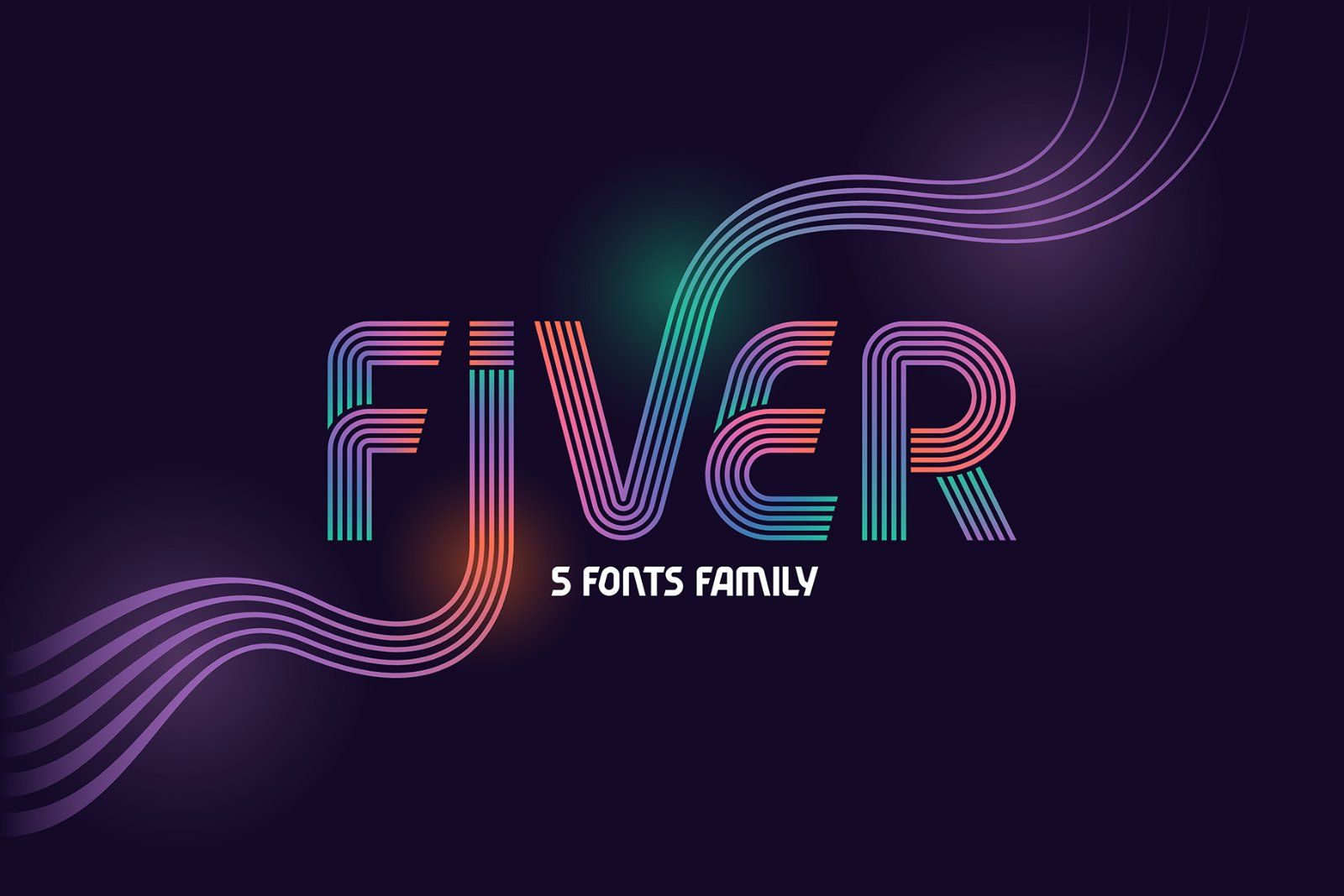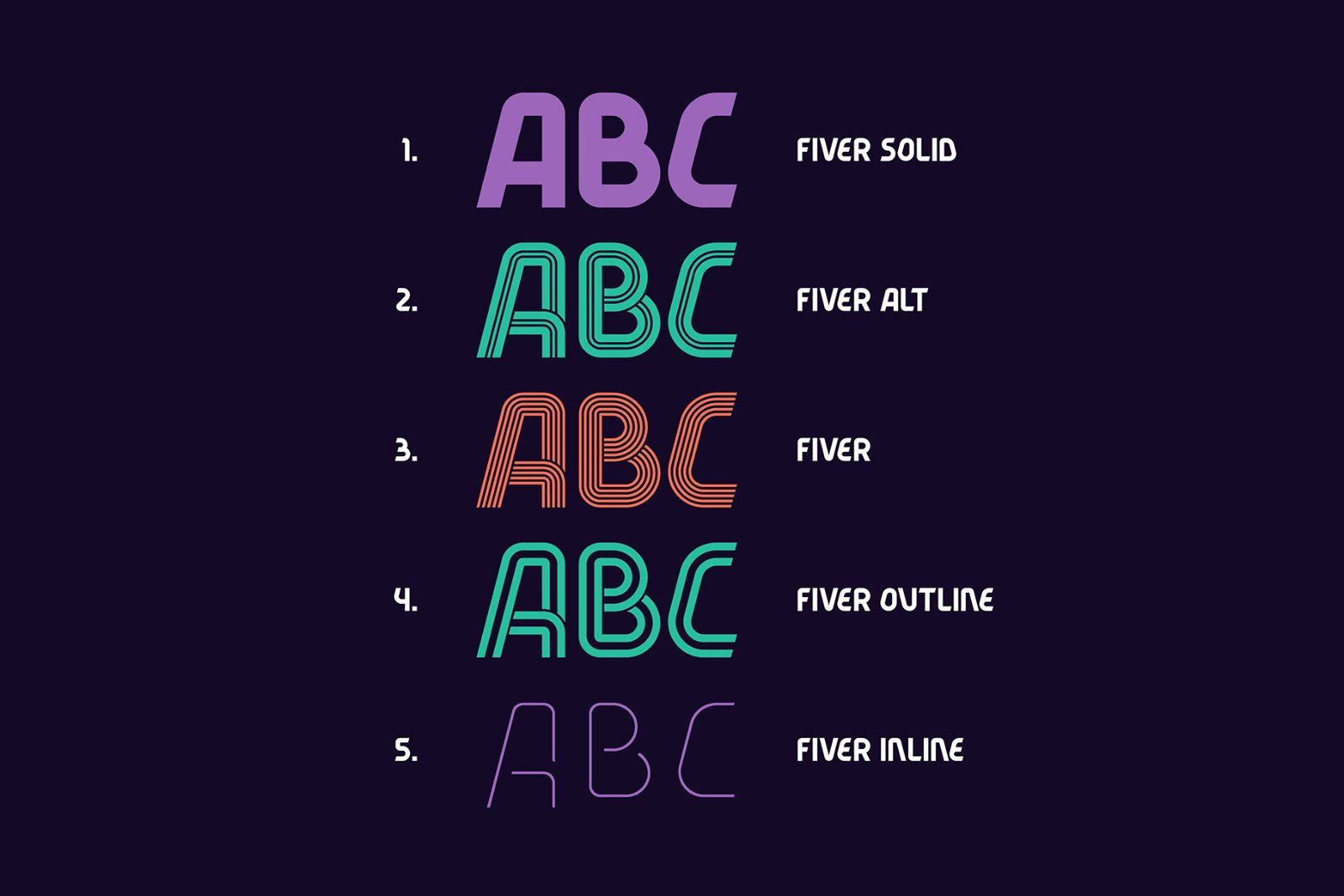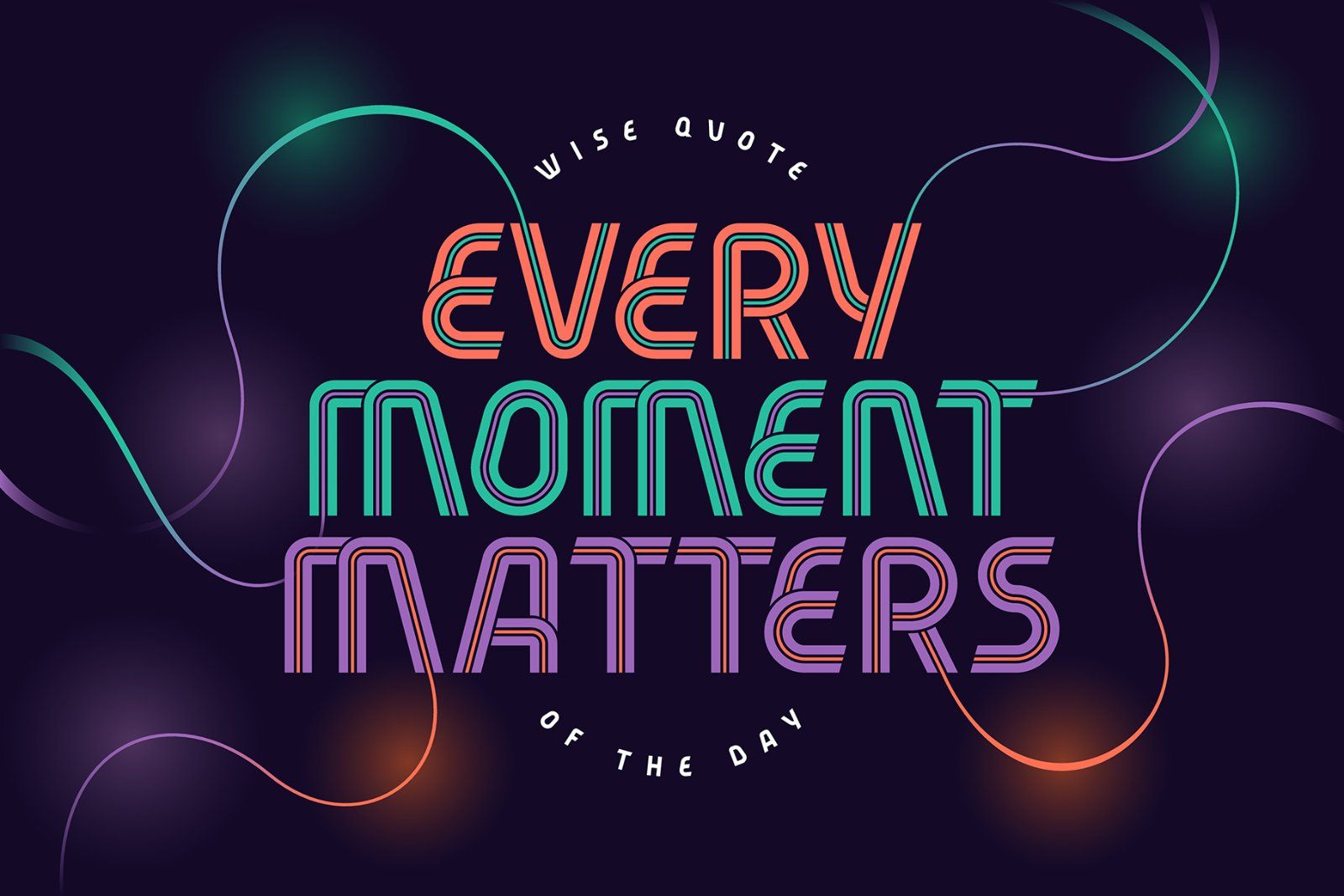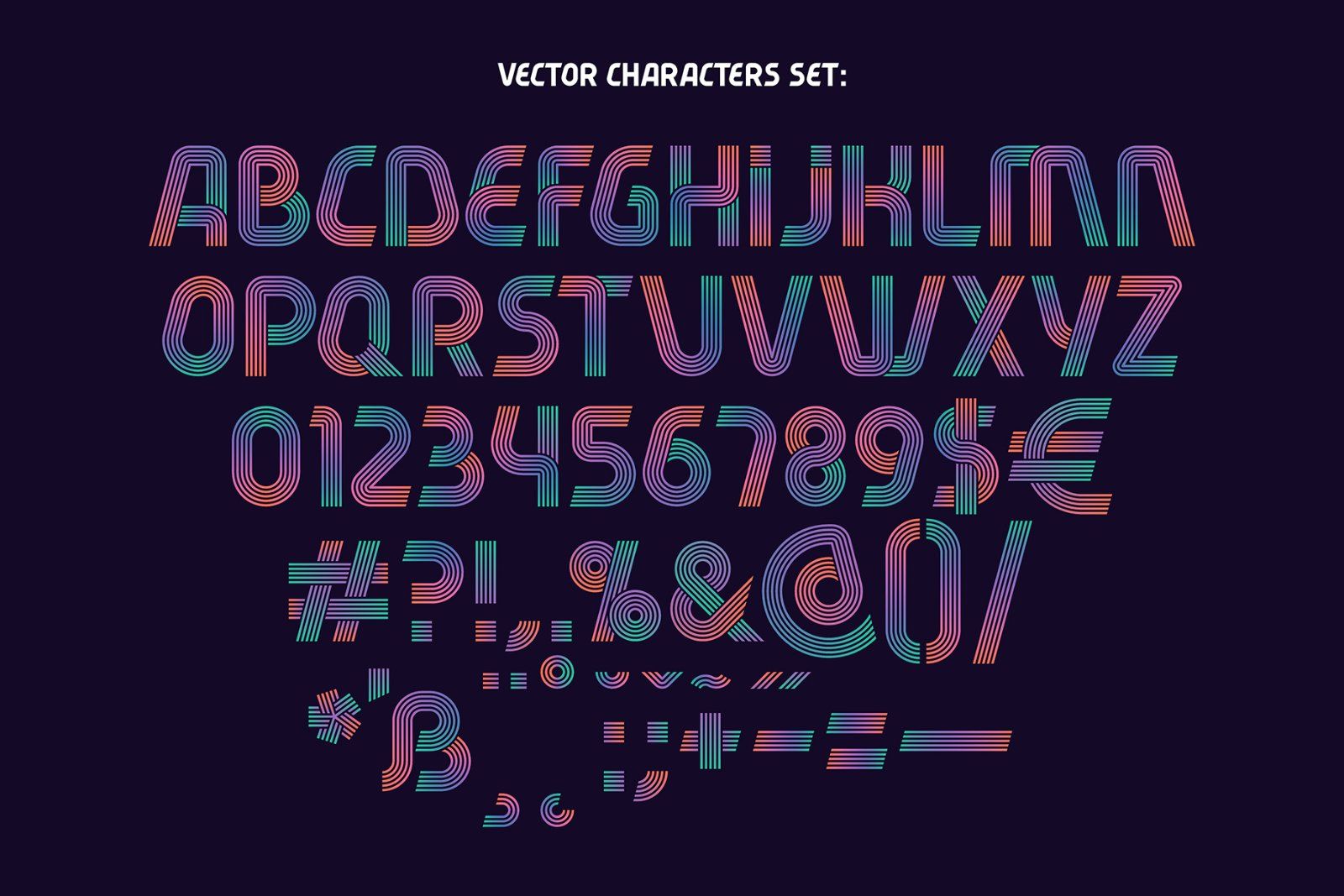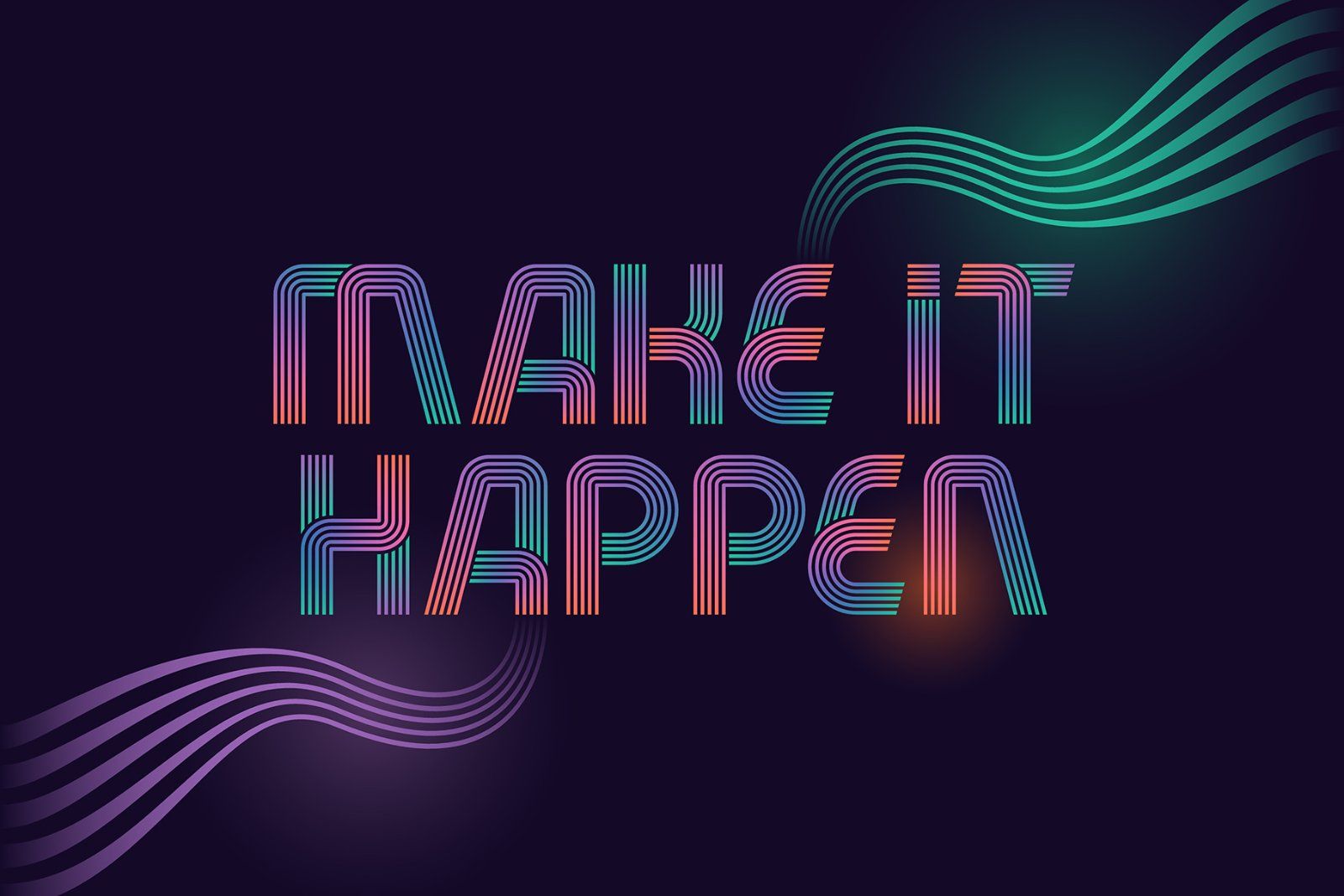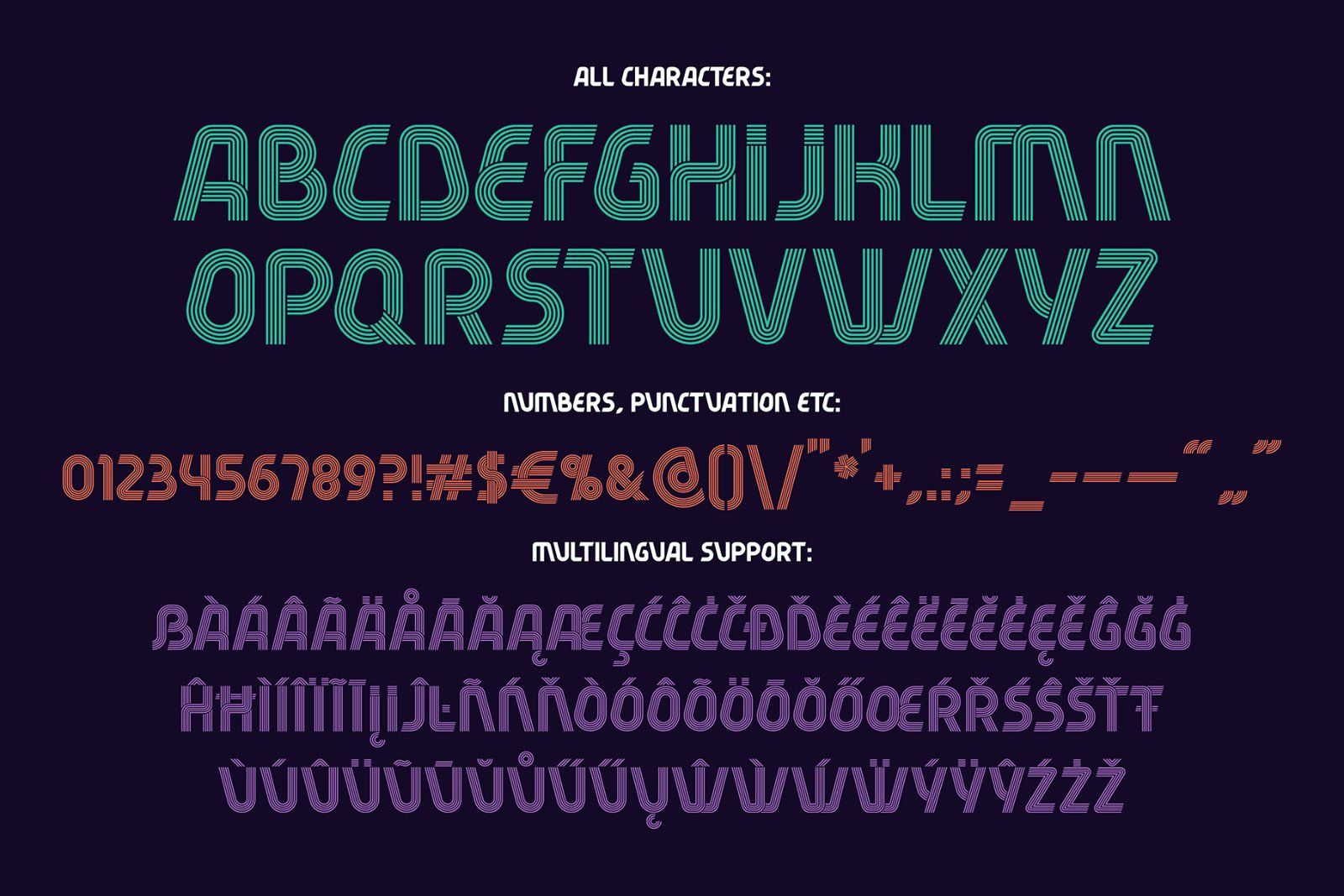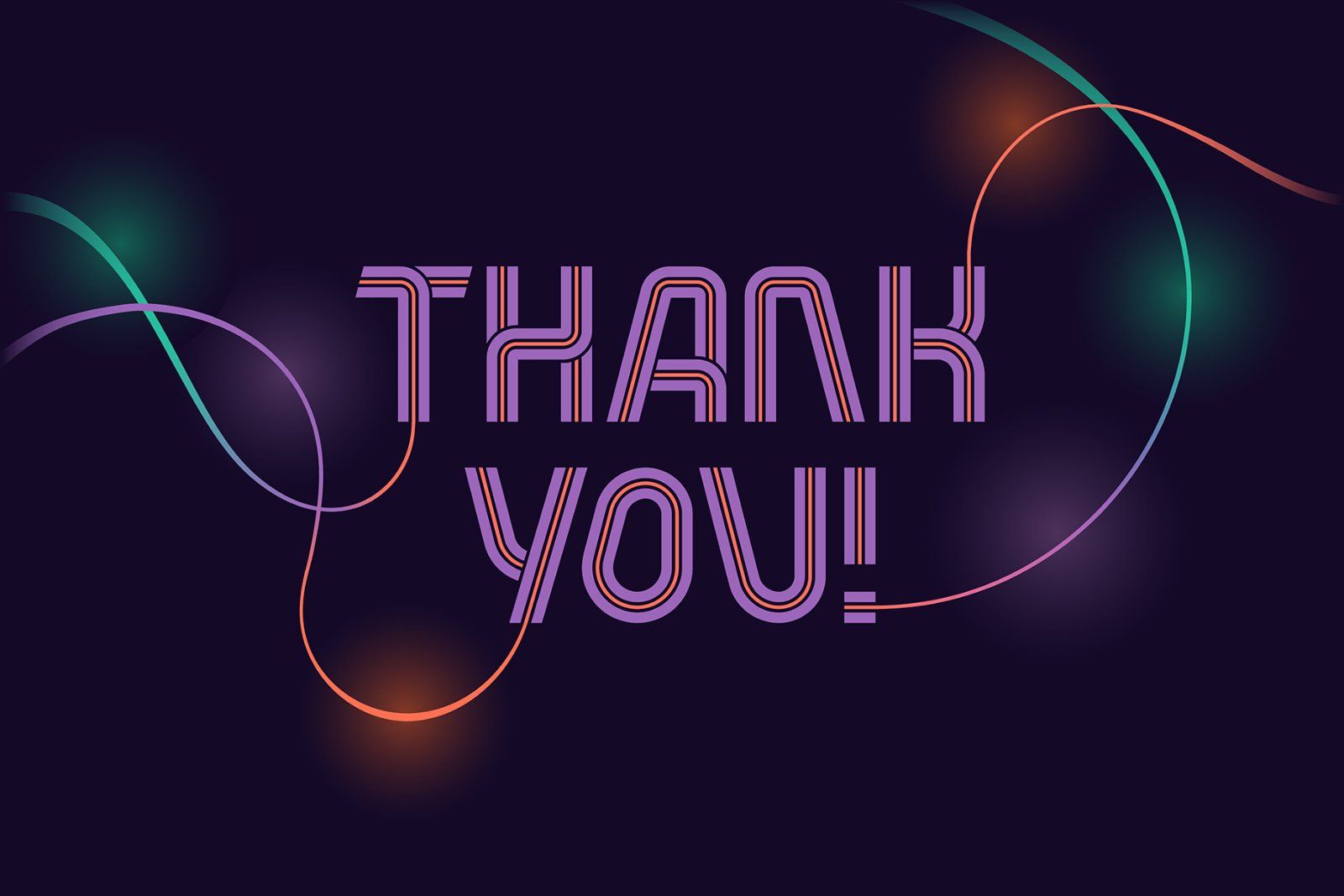
Hi, presenting a modern decorative font set named "Fiver". It consists of five fonts with different lines variations. Gradient color effect with five lines font version is available in vector EPS format. Also two posters with lettering quotes are included in vector EPS.